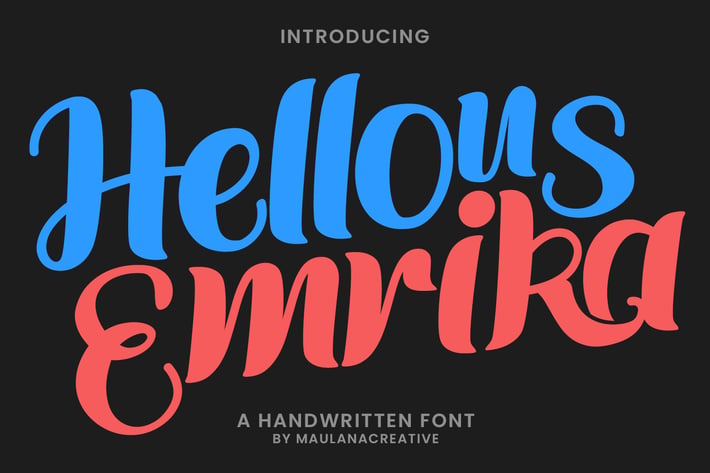
Hellous Emrika Handwritten Font
Give your designs an authentic handcrafted feel. "Hellous Emrika" is perfectly suited to signature, stationery, logo, typography quotes, magazine or book cover, website header, clothing, branding, packaging design and more.